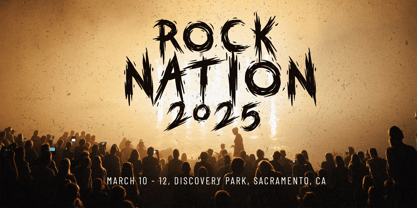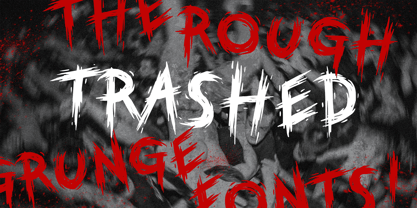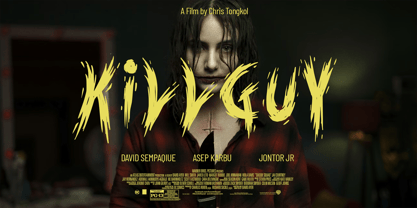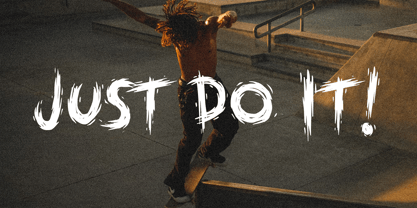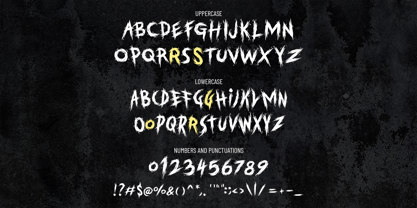
Trashed
by Tomatstudio
The Trashed Font Family was designed by Cipto Bagus Prakarso and published by Tomatstudio. Trashed contains 1 styles. More about this family
Crafted carefully and more detail than before, you can see the detail of the curve and the shattered effect. Perfect for rough grunge design, hard metal music or a thriller movie.
You'll get uppercase and lowercase versions, and there's also some alternatives. The lowercase is also caps but its more condensed, makes it great combination if you want to combine the uppercase and lowercase!
Designers: Cipto Bagus Prakarso
Foundry: Tomatstudio